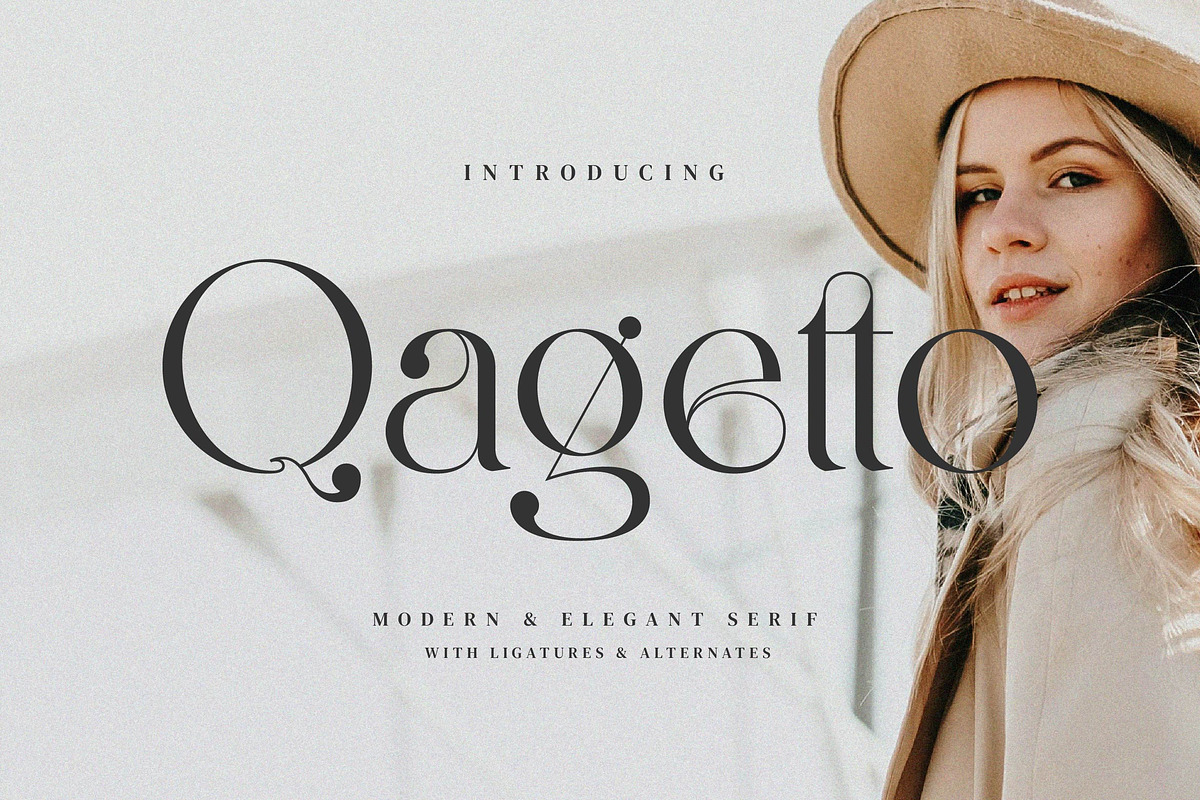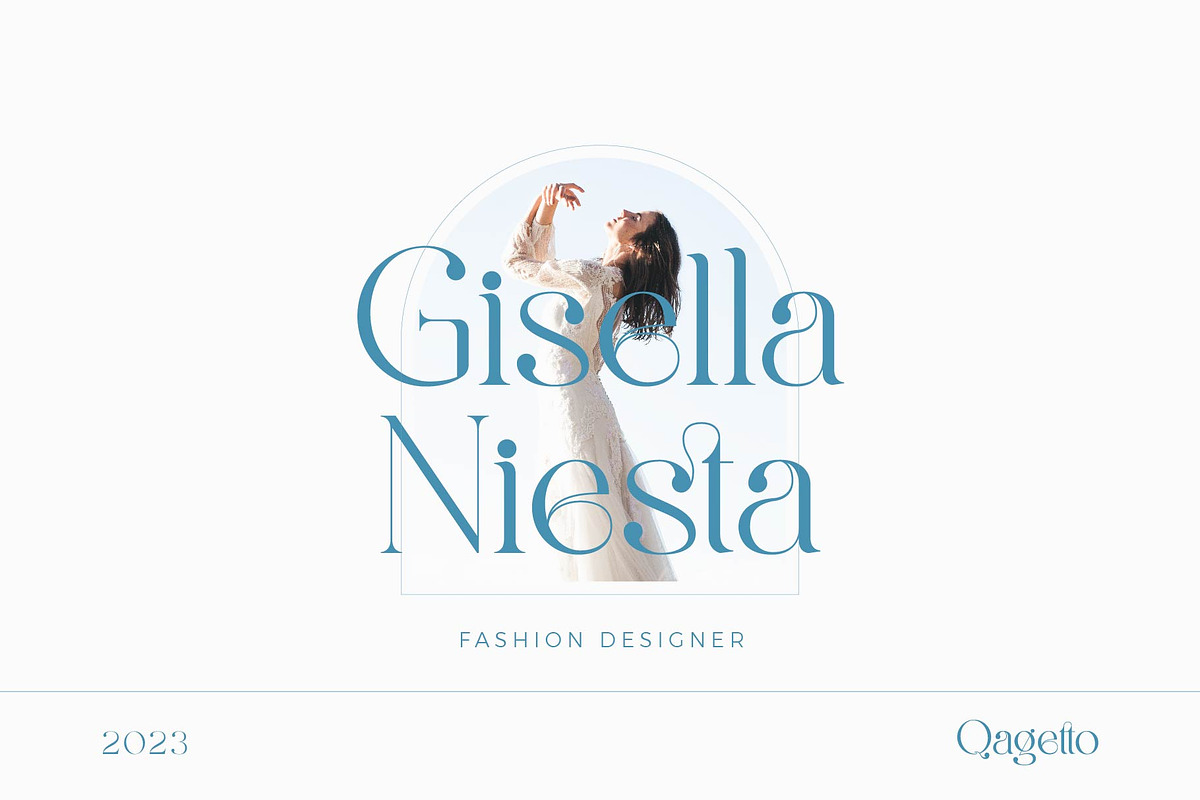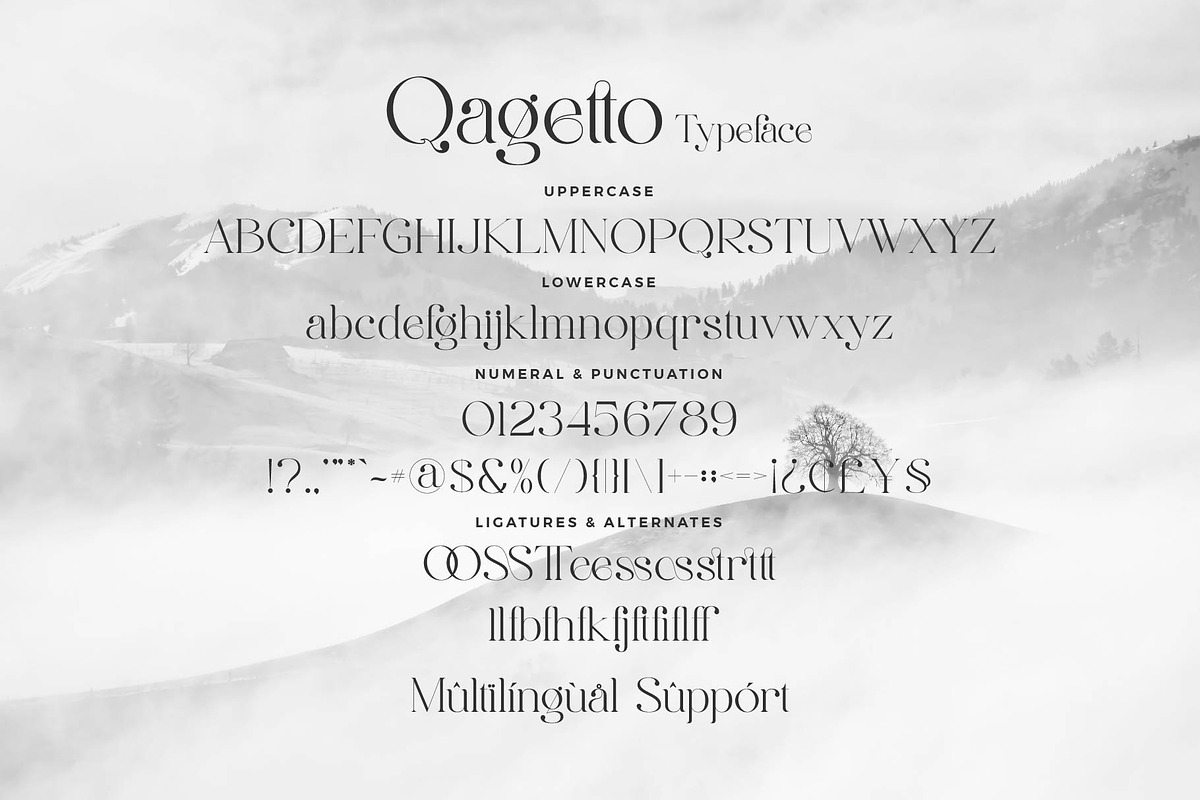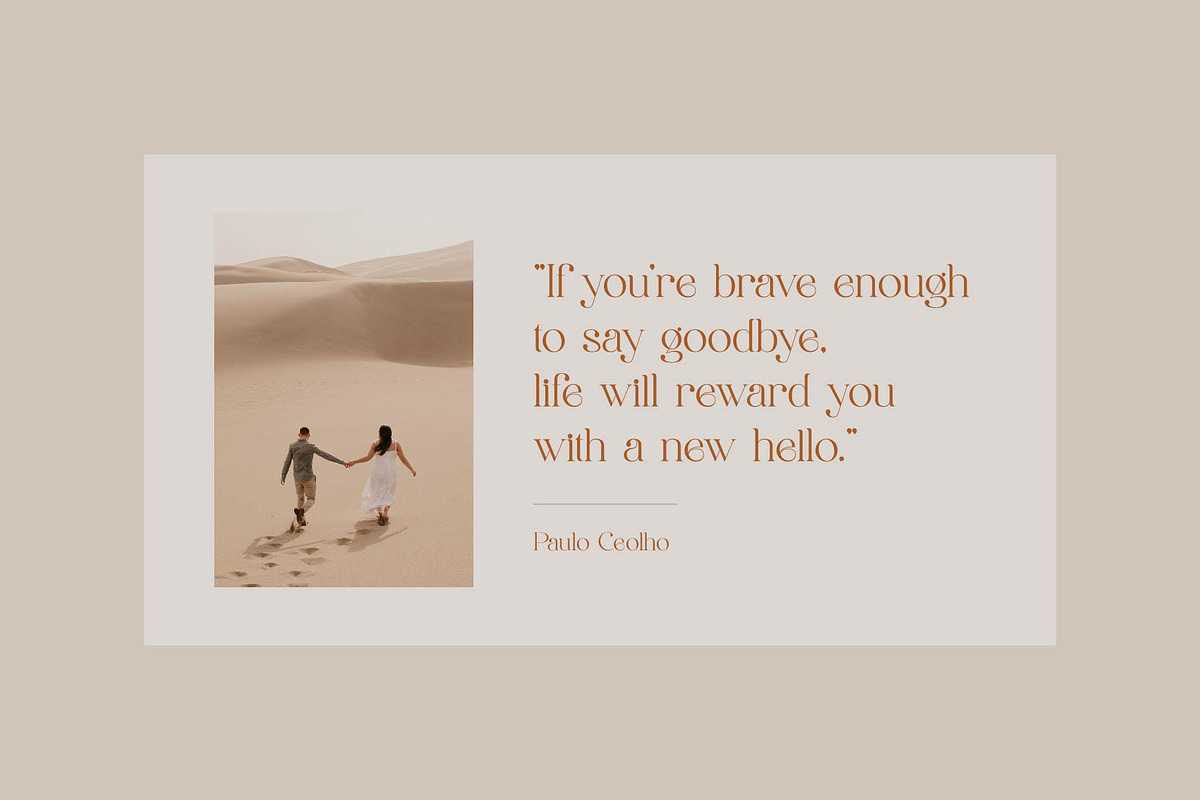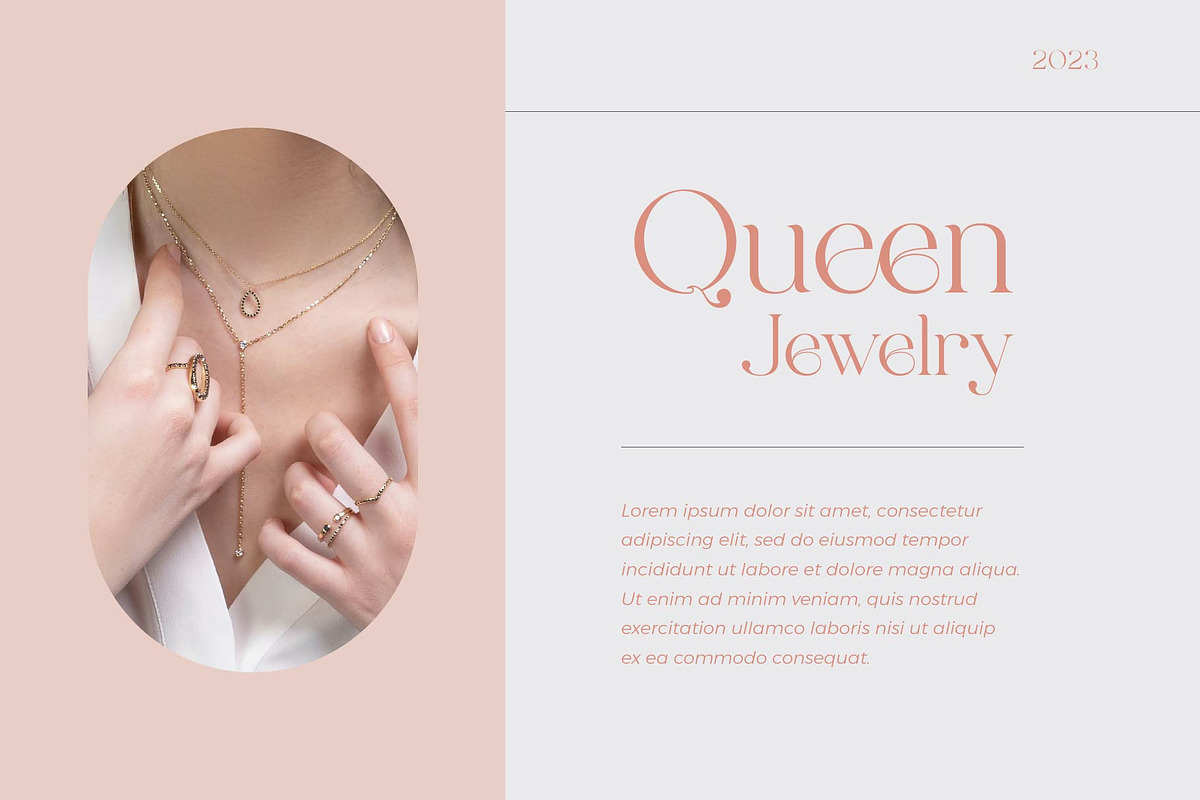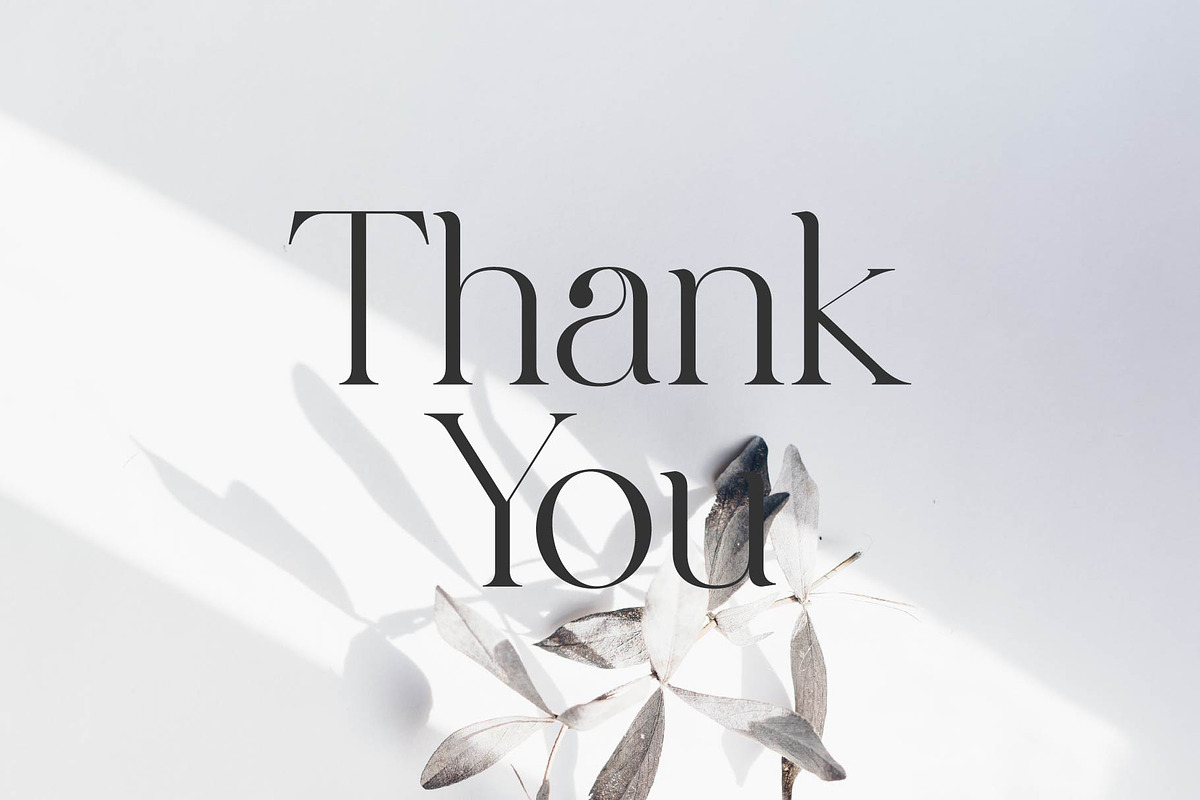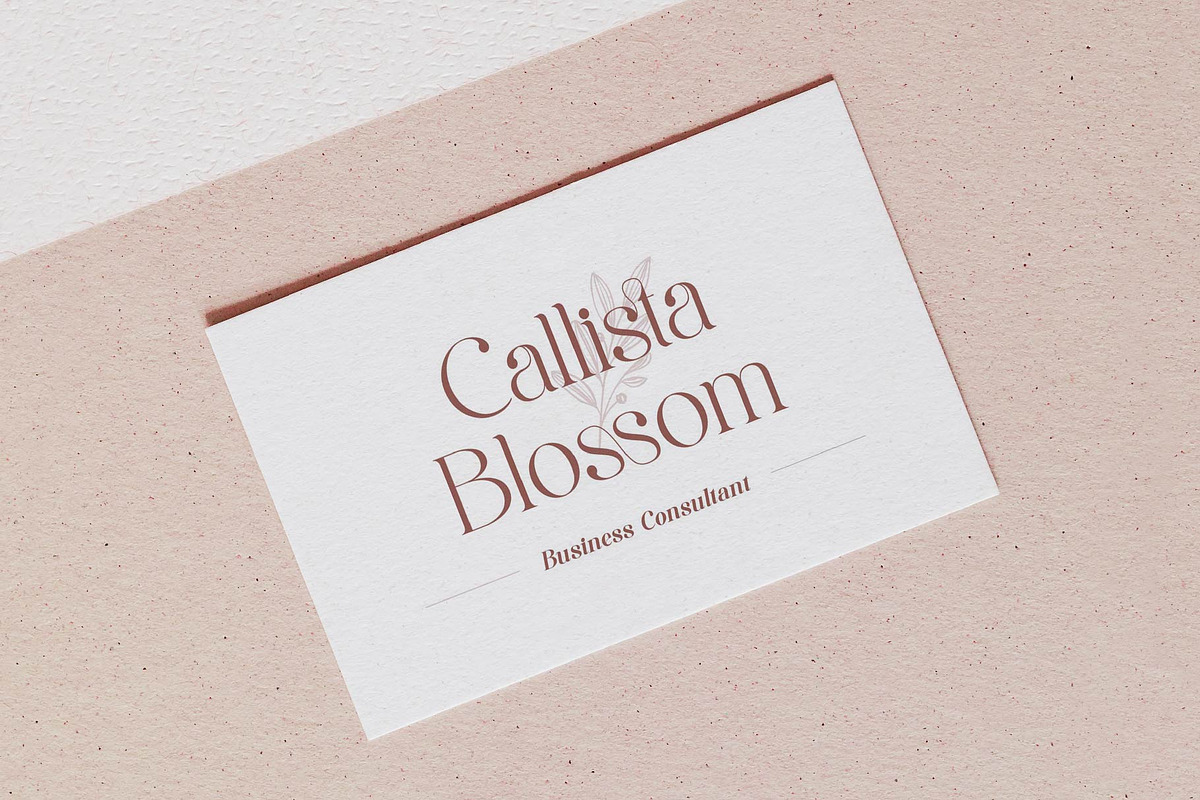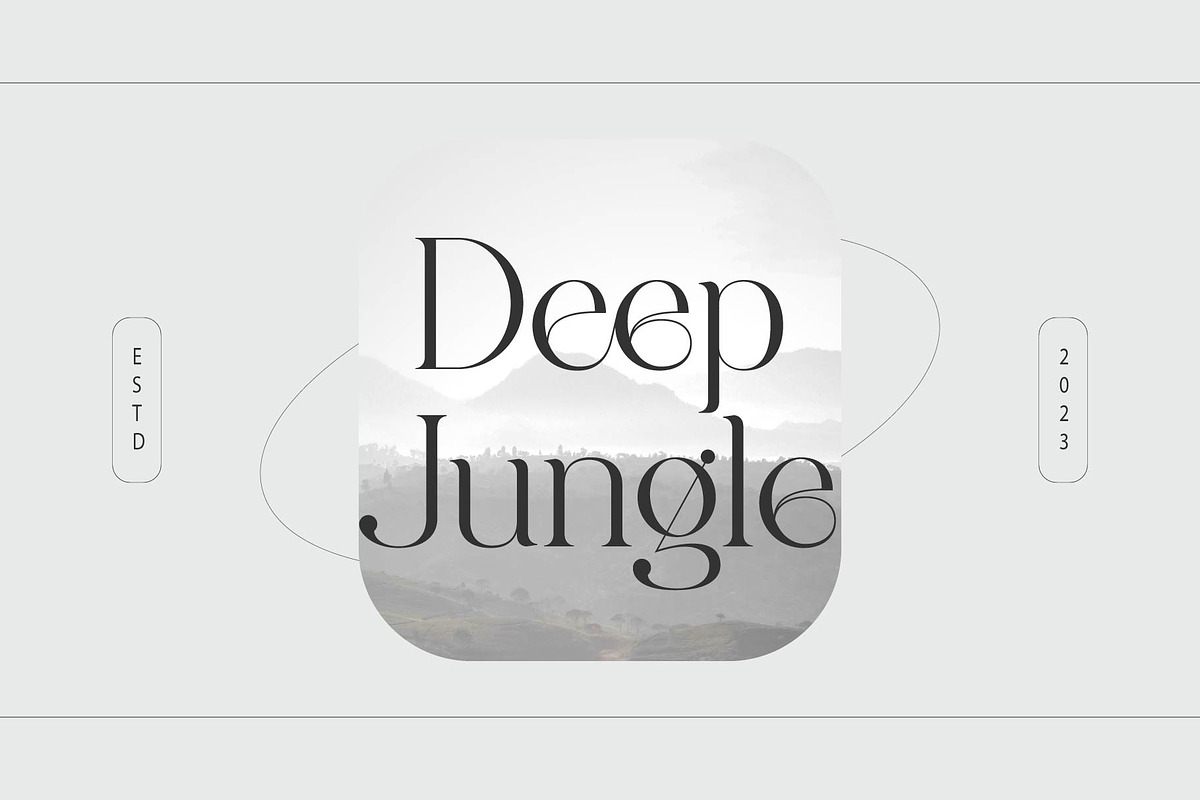
Qagetto - A Stylish Serif
Qagetto Stylish Ligature Typeface, inspired by the famous minimalist logo perfect for the purposes of designing templates, brochures, videos, advertising branding, logos and more.